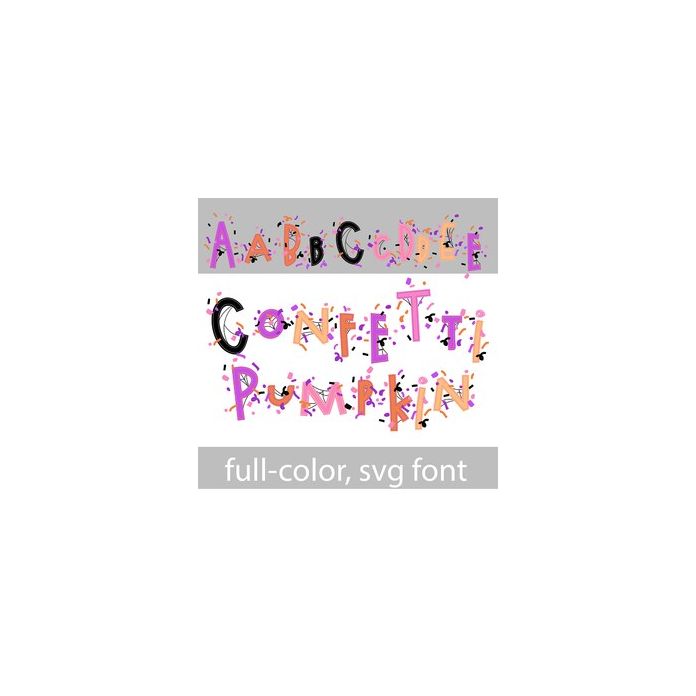
This full-color font features a whimsical font, a Halloween color palette, webs, and confetti. There is an alt case w/ additional colors you can access through your system or Silhouette's glyph map.